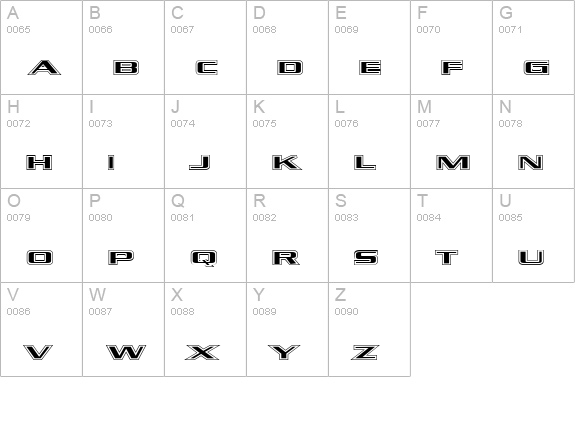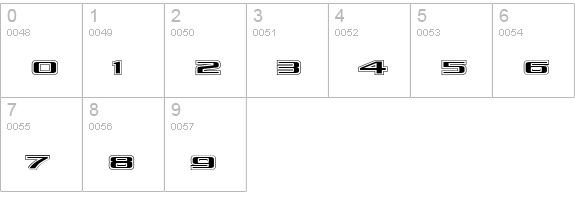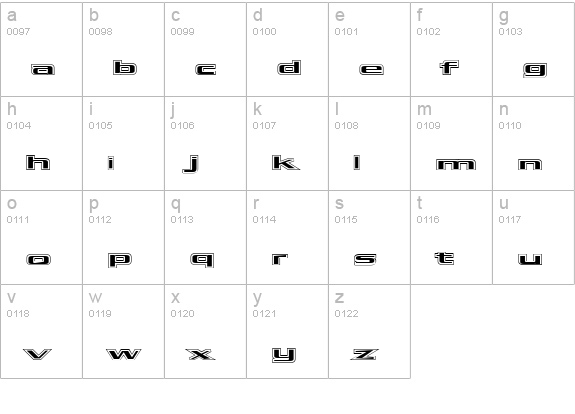
Kubra_Hollow Font Details
Introducing Kubra Hollow font, a striking typeface that effortlessly combines elegance with a touch of modernity. This unique font features delicate lines and an airy design that exudes sophistication and creativity. Perfect for adding a contemporary flair to your projects, Kubra Hollow font is versatile and can be used for a wide range of design applications. And the best part? Kubra Hollow font is available for free download at FontsMarket.com! So you can easily access this stunning typeface and elevate your designs with its distinctive charm. Whether you're working on branding, packaging, invitations, or any other creative project, Kubra Hollow font is sure to make a lasting impression. Download it today and let your creativity soar with this beautiful and freely available font.